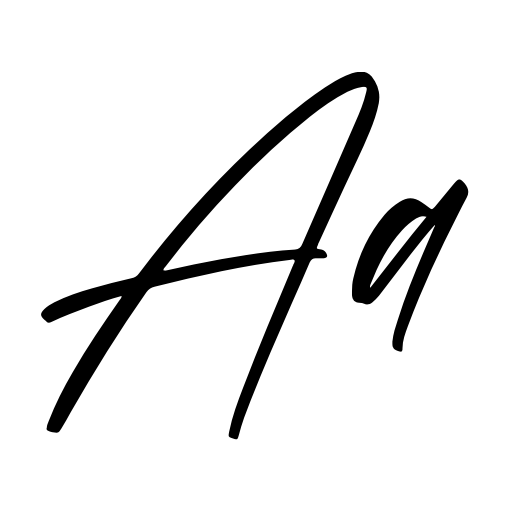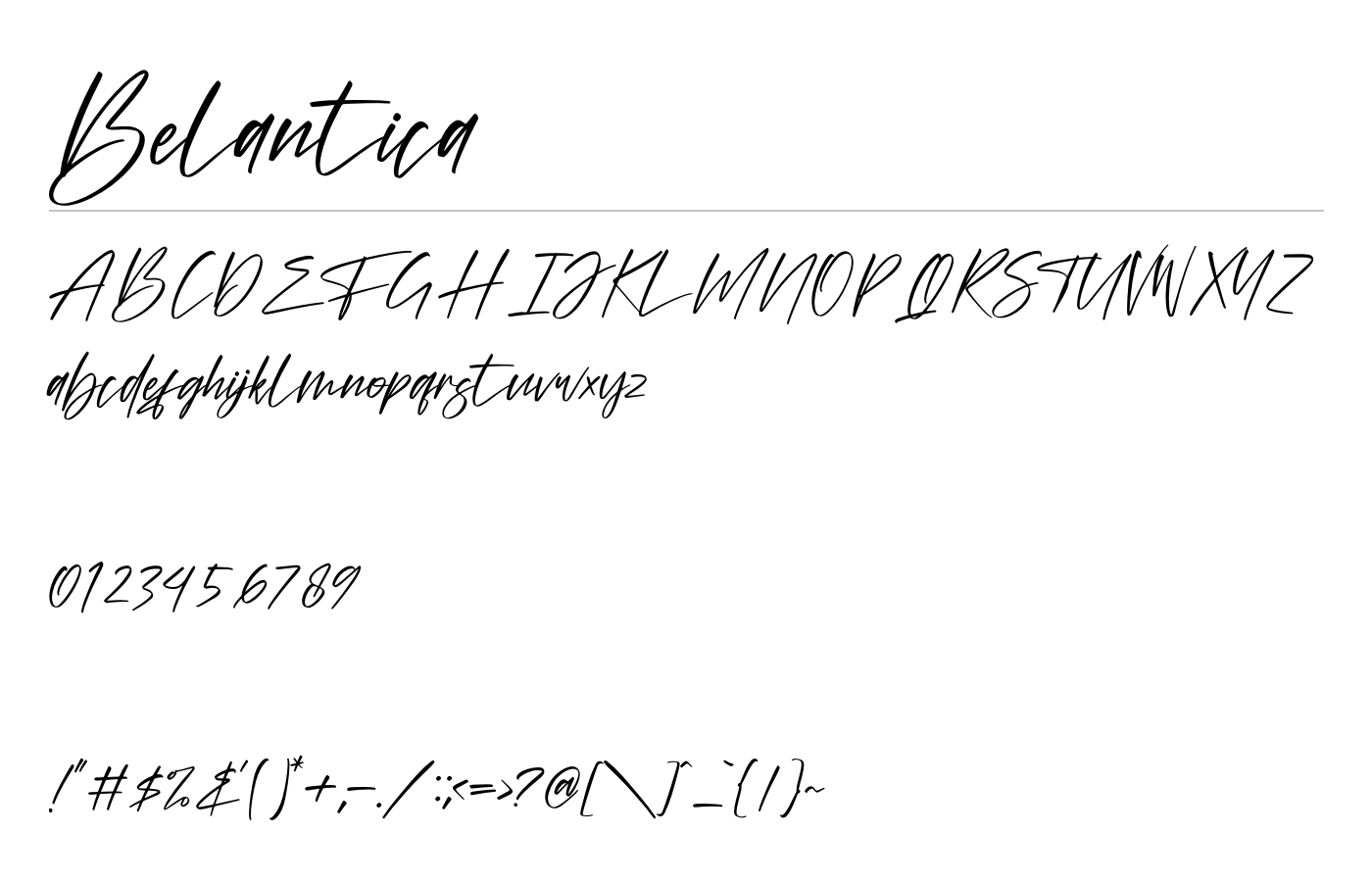
Belantica is a stylish, handwritten script font with a casual yet elegant vibe, characterized by its slender, flowing strokes and slightly irregular letterforms that mimic natural penmanship. Its light weight and airy spacing make it ideal for adding a personal, artistic touch to branding, invitations, and creative projects where a modern, approachable feel is desired. This font works beautifully in headlines and logos that seek to convey charm and individuality without sacrificing readability.
Belantica Font
About Belantica Font